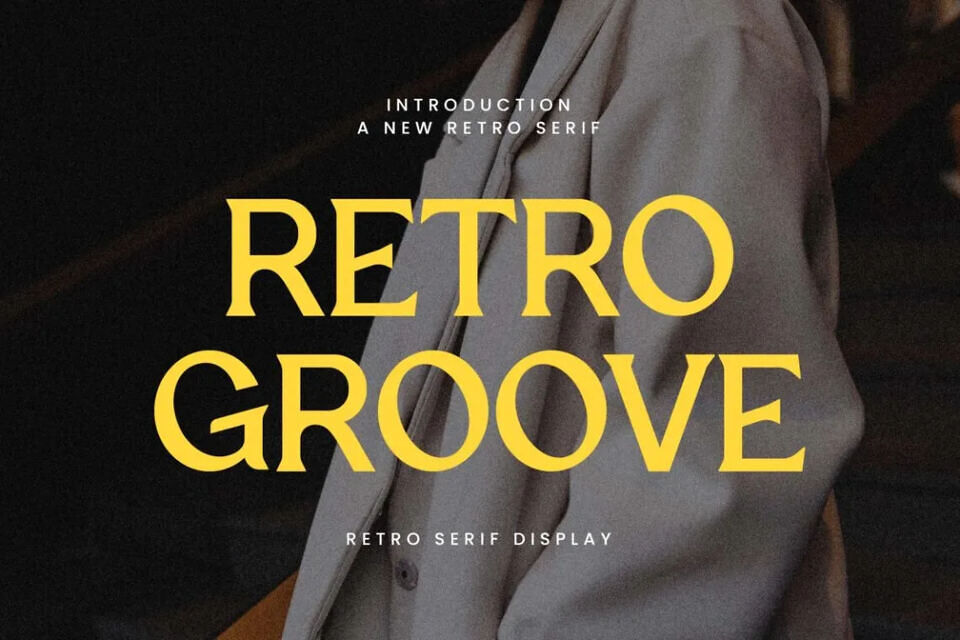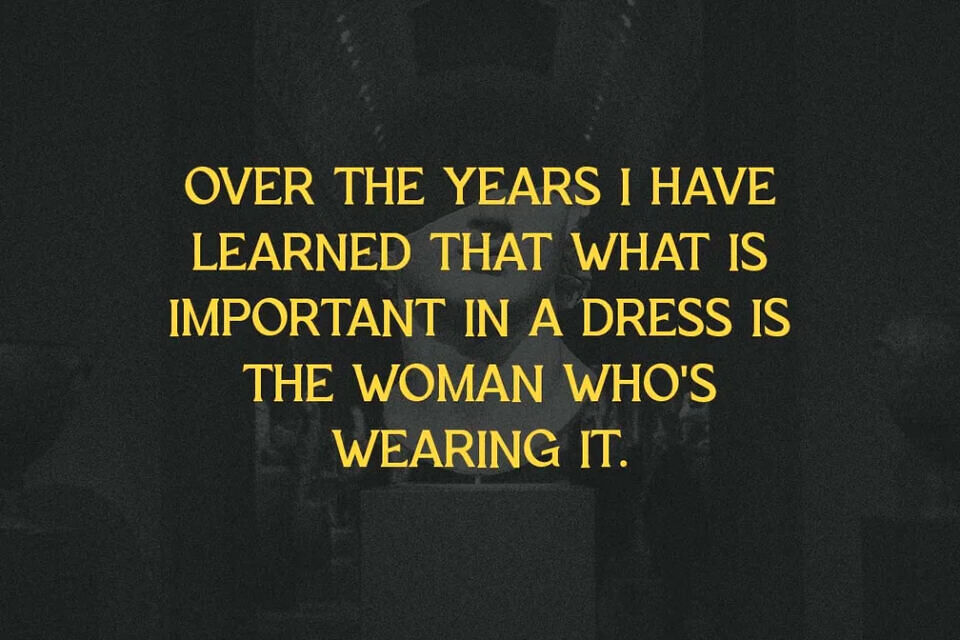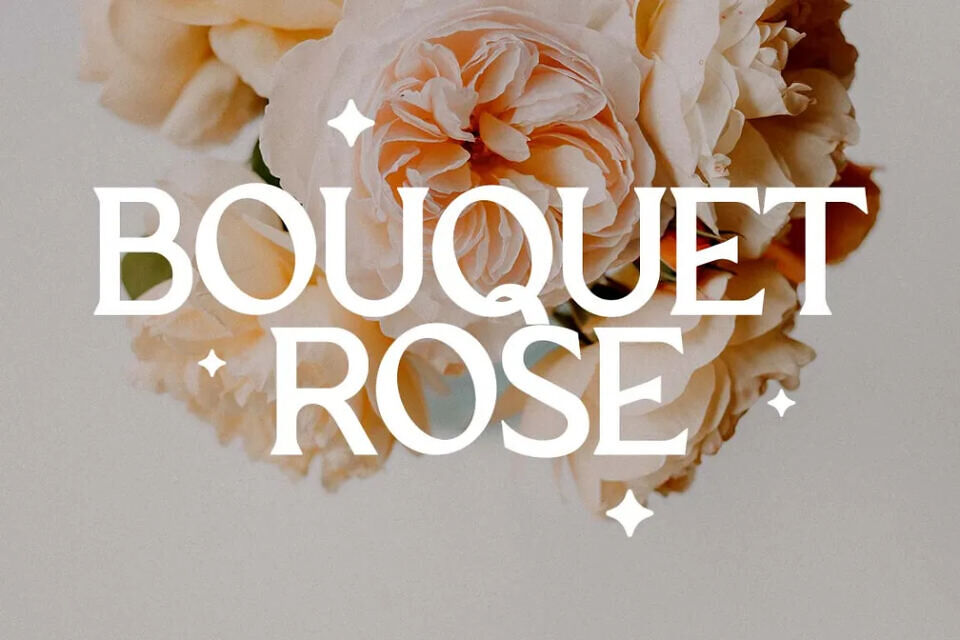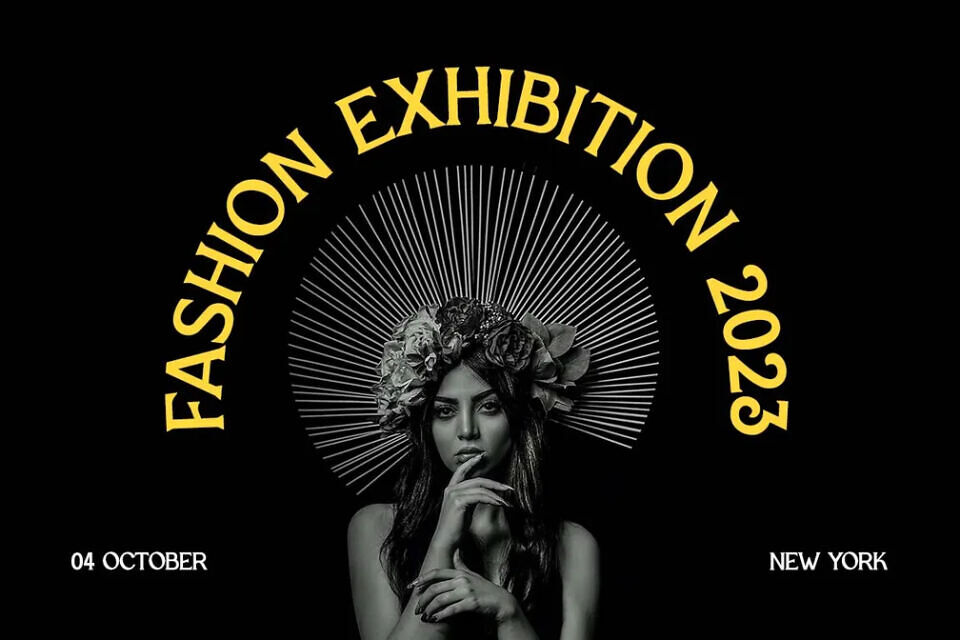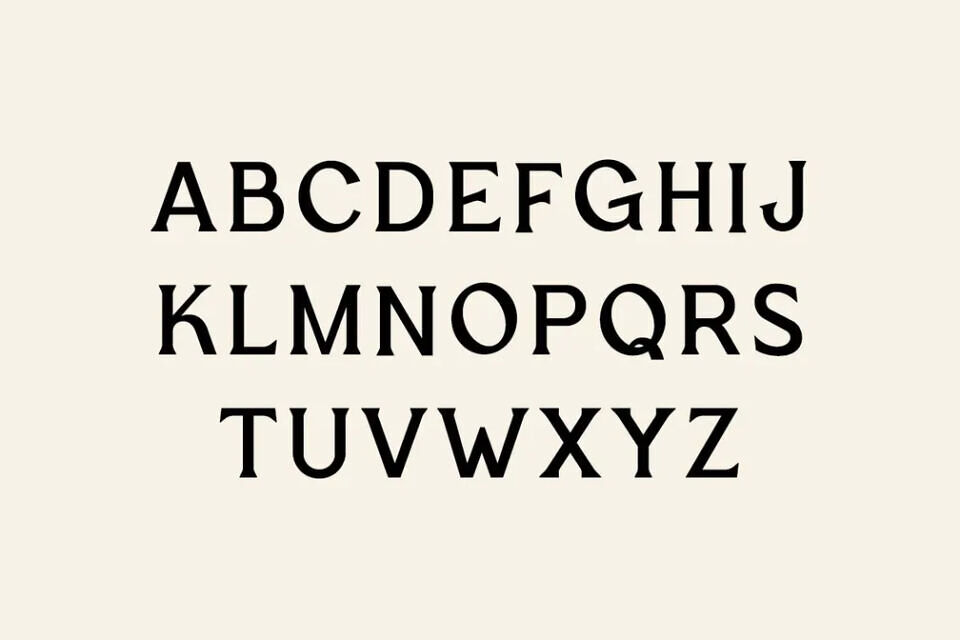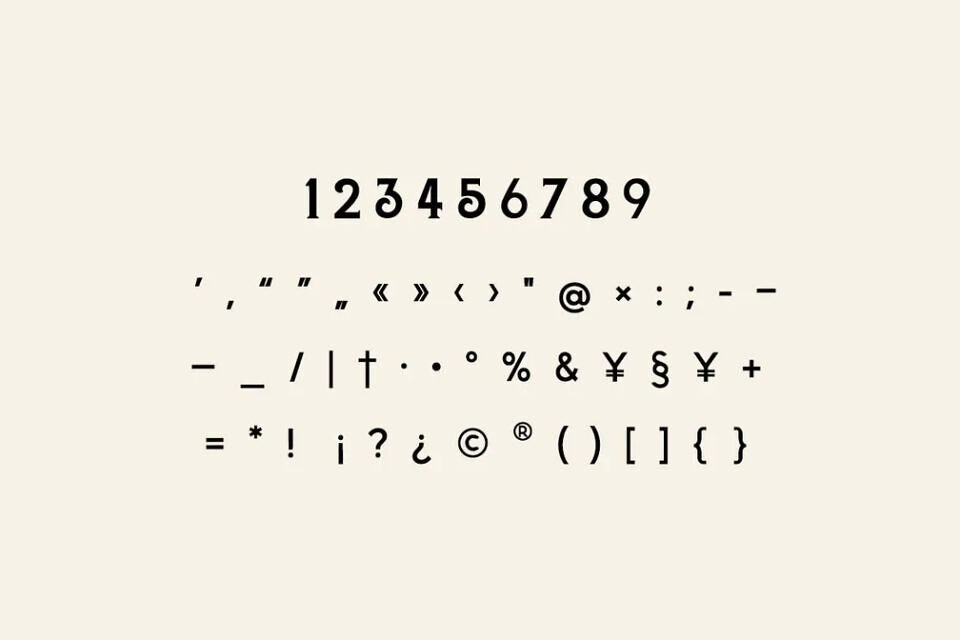
Retro Groove is a sophisticated serif font with a vintage flair. Its elegant design makes it perfect for various projects, including logos, weddings, and editorial content. This versatile font works well for both masculine and feminine styles, particularly in fashion-related branding and design, adding a touch of class to any project.